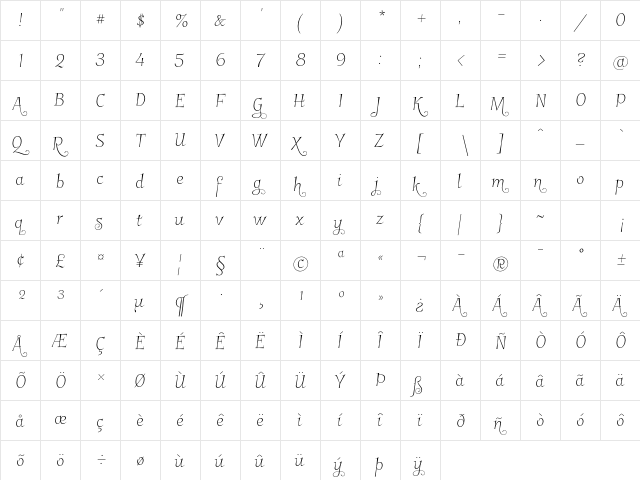
GarineldoNo01 Regular
| Foundry | gluk |
| Designer | gluk |
Design Context for GarineldoNo01 Typeface
GarineldoNo01 offers clean, dependable letterforms without strong stylistic allegiance, making it a practical choice for designers who need flexibility.